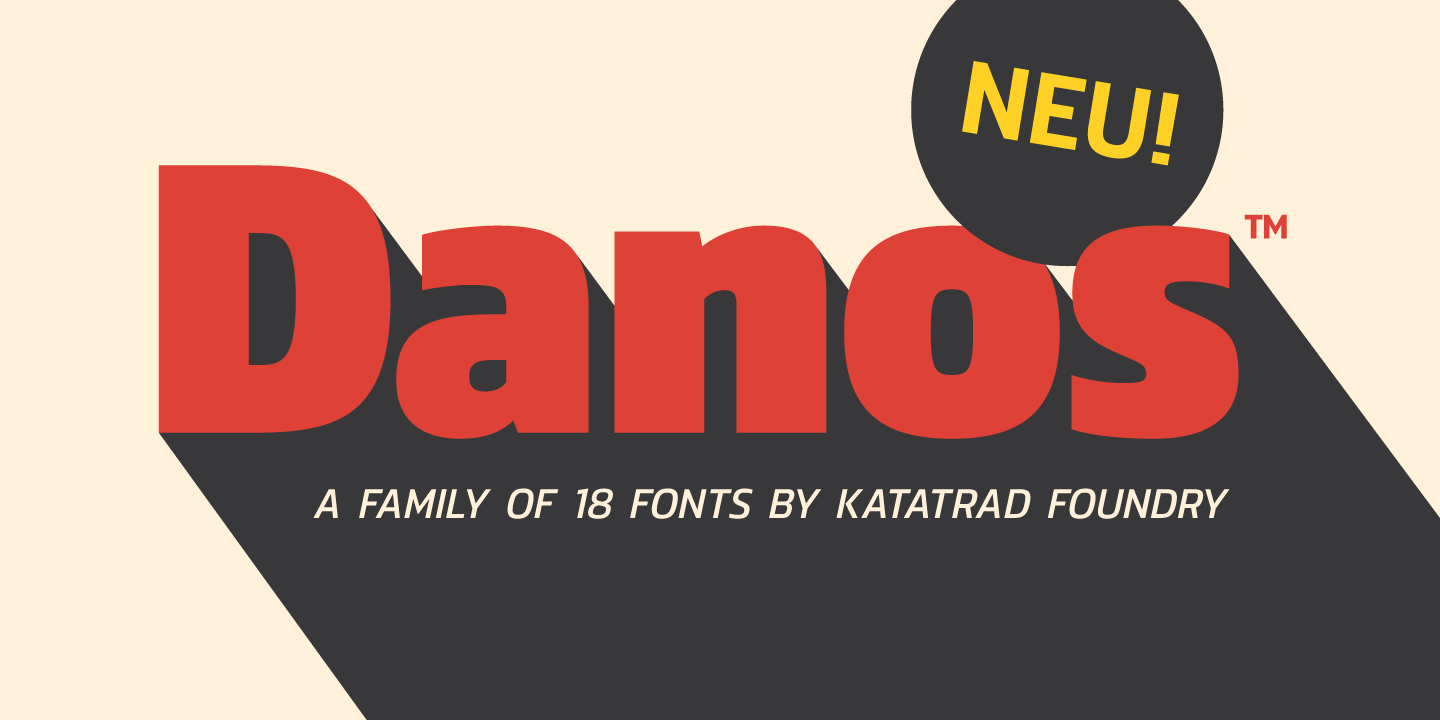
The Danos Font is ideal for Greek restaurant branding, Mediterranean travel campaigns, cultural heritage materials, Greek Orthodox church signage, traditional taverna menus, Hellenic festival posters, Greek cultural center designs, and authentic Greek lifestyle marketing. This distinguished typeface excels in projects for Greek businesses, Mediterranean cuisine establishments, cultural organizations, travel agencies, and brands seeking to capture the timeless wisdom, philosophical depth, and classical beauty of Greek civilization and heritage.
What makes the Danos Font exciting is its authentic embodiment of Greek cultural sophistication with classical elegance and Mediterranean warmth. The font features harmoniously balanced letterforms with proportions inspired by ancient Greek inscriptions and modern Hellenic design sensibilities that immediately evoke the intellectual legacy and cultural richness of Greece. Its classical character and philosophical gravitas make it perfect for brands seeking to convey wisdom, tradition, and the enduring appeal of Greek heritage. The font's Mediterranean charm and cultural authenticity create immediate connections with audiences who appreciate classical civilization.
The Danos Font family includes Hellenic-inspired variations: Light Classical, Regular Heritage, Bold Tradition, Heavy Ancient, Mediterranean, and Orthodox versions. Each style maintains the font's Greek character while offering different levels of cultural expression and classical sophistication for diverse Hellenic applications. The family also features Greek ornaments, classical decorations, Orthodox symbols, and Mediterranean elements that enhance cultural and heritage design projects.
Whether you're developing Greek brand identities, creating Mediterranean marketing materials, or designing cultural promotional campaigns, the Danos Font Free Download provides the perfect solution for projects requiring authentic Greek typography. This exceptional typeface brings genuine Hellenic heritage to design work, making it an essential resource for designers celebrating Greek culture, Mediterranean lifestyle, classical philosophy, and the timeless appeal of ancient Greek wisdom and contemporary Greek sophistication.